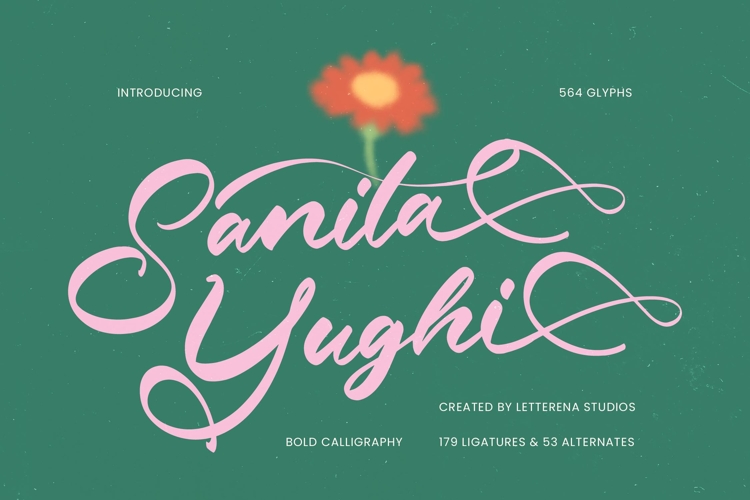
Sanita Yughi - Bold Calligraphy
Sanita Yughi - Bold Calligraphy adapts seamlessly across global markets, making it incredibly versatile for international projects. This ensures that your brand’s voice remains consistent and professional, regardless of the linguistic landscape or regional requirements.
Redefine the identity of your next premium project with unmatched typographic elegance and appeal. Sanita Yughi - Bold Calligraphy is the ideal application for luxury branding, premium packaging, and editorial design, where a touch of human connection is paramount. It is perfect for creating standout wedding stationery, high-end logos, and social media content that requires a bold yet graceful presence.